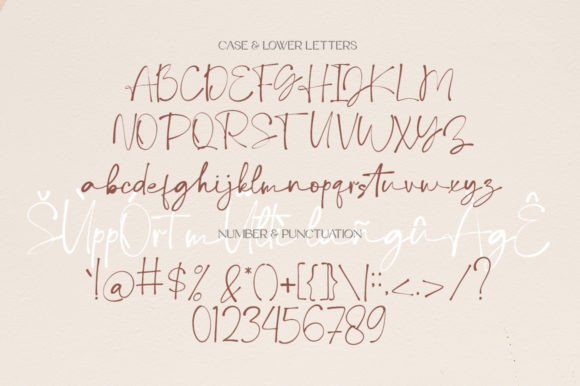
Debora Celine is a Duo Script and Serif Font that is simple and unique looking. This customizable font will look great on a variety of design ideas such as Christmas themes, valentines, posters, invitations, weddings, branding projects, social media posts, magazines, book covers, and more. This will add a fun and friendly touch to any of your projects.
Debora Celine Font Font